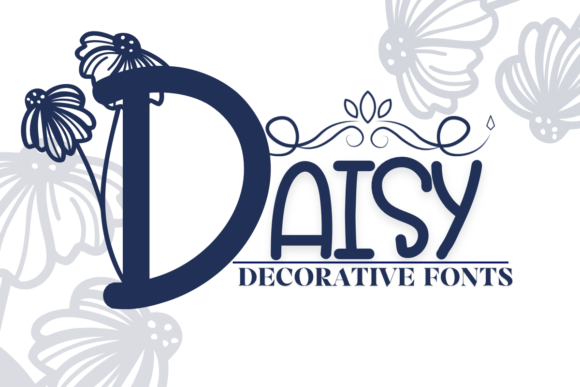
The Joy of Handwritten Charm: Unveiling the Daisy Font
Have you ever found yourself scribbling down a to-do list in a quirky, handwritten font, only to realize it’s become the highlight of your day? For many creatives, the joy of writing lies not just in the words themselves, but in the unique personality they bring to the page. This is where the Daisy Font comes in – a charming, decorative typeface designed to add a touch of whimsy to your everyday writing.
Perfect for jotting down notes, writing in a diary, or crafting heartfelt greeting cards, the Daisy Font is a versatile tool for designers and non-designers alike. Its playful nature makes it an excellent choice for a wide range of projects, from social media posts to custom merchandise. Whether you’re a seasoned designer or a DIY enthusiast, the Daisy Font is sure to bring a smile to your face and a touch of personality to your creations.
Daisy Font Key Features
- Font Family: Daisy Font is a sans-serif font family.
- Unique Characteristics: Features a clean and modern design with rounded edges and a friendly feel, making it suitable for body text and display use.
Daisy Font Review
I’ve had the chance to work with the Daisy font, and I must say it’s a mixed bag. On the one hand, I think the font has some great qualities that make it a solid choice for certain projects. ✨
- Legibility**: Daisy font is incredibly legible, making it perfect for body text or large blocks of content. The font’s clear and crisp lines ensure that readers can easily follow along.
- Playfulness**: The font’s subtle flair and rounded edges give it a playful, approachable feel that’s great for casual or creative projects.
- Font weight options**: Daisy font offers a range of weights, from light to bold, which provides flexibility for designers to achieve the desired visual impact.
However, I do have some concerns that limit its use in certain situations. ⚠️
- Lack of sophistication**: The font’s playful feel can sometimes come across as immature or unprofessional, which may not be suitable for more formal or corporate projects.
- Limited expressiveness**: While the font’s subtle flair is charming, it may not be expressive enough for projects that require a stronger emotional connection or visual impact.
- Not ideal for small text**: Due to its rounded edges and lack of sharp lines, the font may not be the best choice for small text or fine typography.
Overall, I think Daisy font is a solid choice for projects that require a clear, playful, and approachable feel. However, its limitations should be carefully considered to ensure it’s the best fit for the project at hand.
Tips for Getting the Most Out of the Daisy Font
For the best results, use the Daisy Font in conjunction with bold or italic text to create a visually appealing contrast.
Experiment with different font sizes and colors to make your text stand out.
The Daisy Font is ideal for:
Titles and headings
Body text for websites and blogs
Print materials, such as brochures and flyers
Playfair Display is a luxurious and elegant serif font. It is ideal for use in high-end branding, luxury goods, and elegant invitations. Playfair Display has a more formal and sophisticated feel compared to Daisy Font, making it a better choice for high-end designs.
Great Vibes is a modern and elegant script font. It is perfect for use in wedding invitations, branding, and creative projects where a touch of elegance is required. Great Vibes has a more flowing and cursive feel compared to Daisy Font, making it a better choice for designs that require a more personal touch.
Merriweather is a classic and traditional serif font. It is ideal for use in academic and professional settings, such as books, magazines, and business reports. Merriweather has a more formal and structured feel compared to Daisy Font, making it a better choice for designs that require a sense of authority.
Pacifico is a modern and elegant sans-serif font. It is perfect for use in branding, signage, and creative projects where a touch of sophistication is required. Pacifico has a more relaxed and casual feel compared to Daisy Font, making it a better choice for designs that require a more laid-back tone.